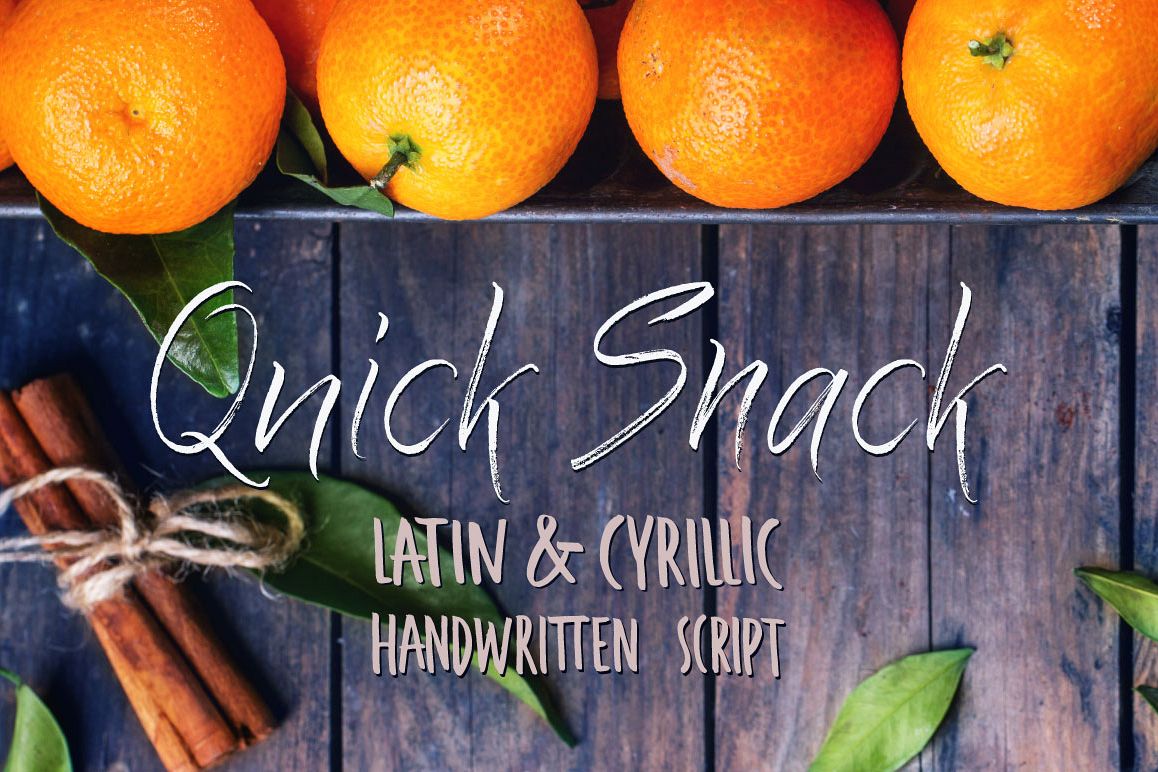
Quick Snack Script Latin & Cyrillic
About Quick Snack Script
Quick Snack is a bright lovely modern calligraphy typefaces. Quick Snack is good for both short texts and headlines.
Basic Latin A-Z and a-z
Basic Cyrillic A-? and ?-?
Numbers
Symbols
Standart Ligatures